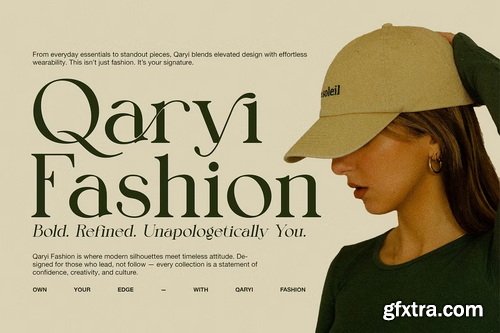
Grigane Elegant Serif Font is a striking fusion of classic elegance and modern design sensibility. Crafted with precision and a deep appreciation for detail, Grigane brings a graceful charm to your typography, enhanced by its stylish ligatures and sophisticated alternate characters. Each letterform flows with subtle sophistication, making it an ideal choice for projects that demand both beauty and clarity.
- Designed to elevate your visual identity, Grigane is perfect for luxury branding, high-end logos, website headlines, fashion lookbooks, editorial spreads, and premium packaging. Its refined serif structure creates a timeless feel, while its modern flourishes add a fresh and creative edge — perfect for capturing attention in today’s competitive visual landscape.
- This font thrives in both minimal and decorative layouts, offering flexibility across various design needs — from boutique product labels and elegant menus to wedding invitations and upscale advertisements. With Grigane, your designs won’t just look polished — they’ll tell a story of style, sophistication, and intentionality.
- Grigane is more than just a font — it’s a visual signature. Its balance between clean lines and ornamental detail makes it a go-to serif for designers seeking elegance without excess. Whether you're building a personal brand or designing for clients, Grigane brings a luxurious, contemporary flair that sets your work apart.